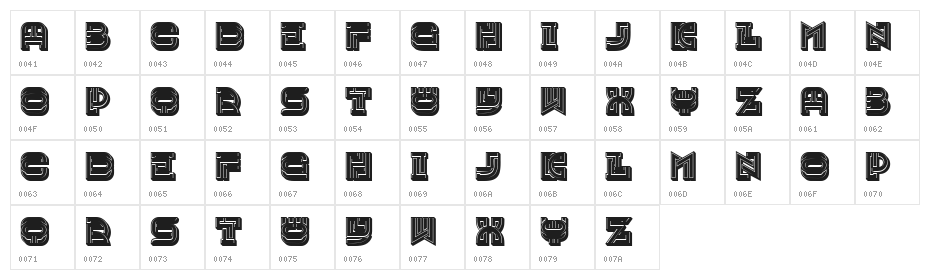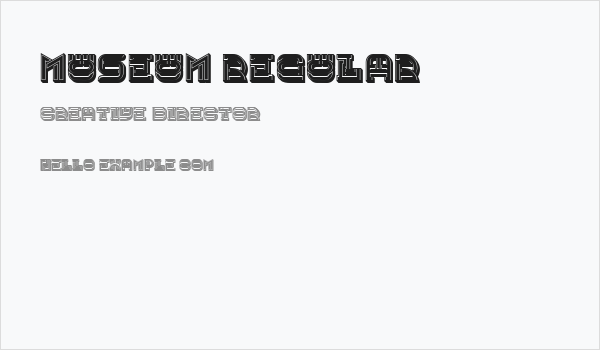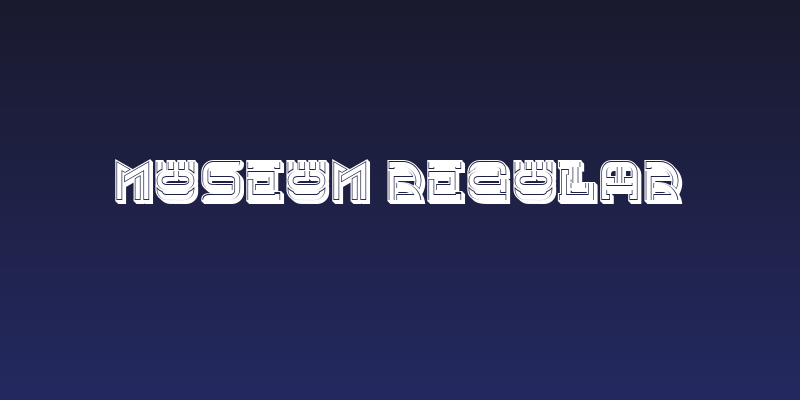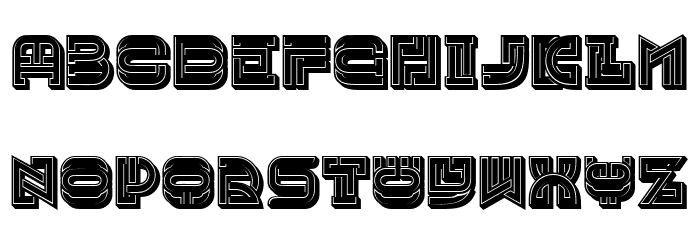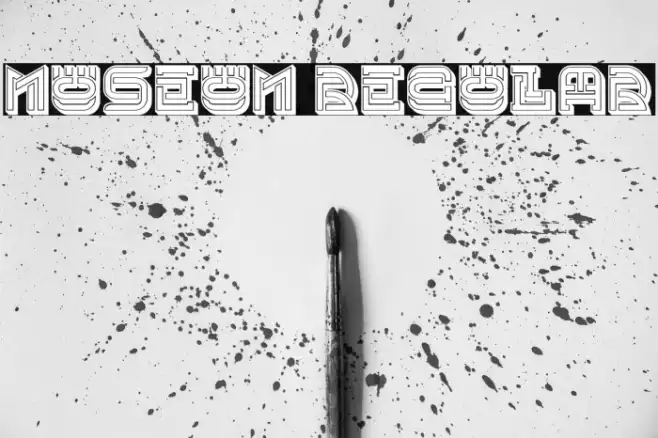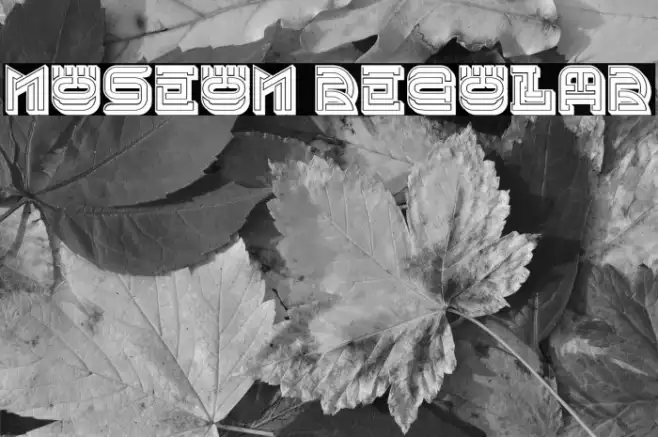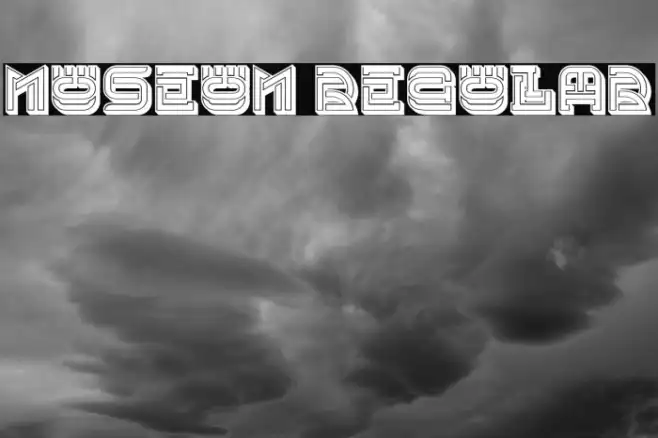
Museum Regular Font
Museum Regular Description
This font features a bold, geometric design with a strong emphasis on symmetry and structure. Each character is crafted with thick lines and intricate patterns, creating a sense of depth and dimension. The style is reminiscent of Art Deco, with its clean lines and decorative elements. The uppercase letters are particularly striking, with unique shapes that make each character stand out. The font's design is both modern and vintage, making it versatile for various creative projects.
| Overall Style | Modern, Vintage |
| Proposed Projects | Ideal for branding, posters, album covers, and any project requiring a bold, artistic statement. |